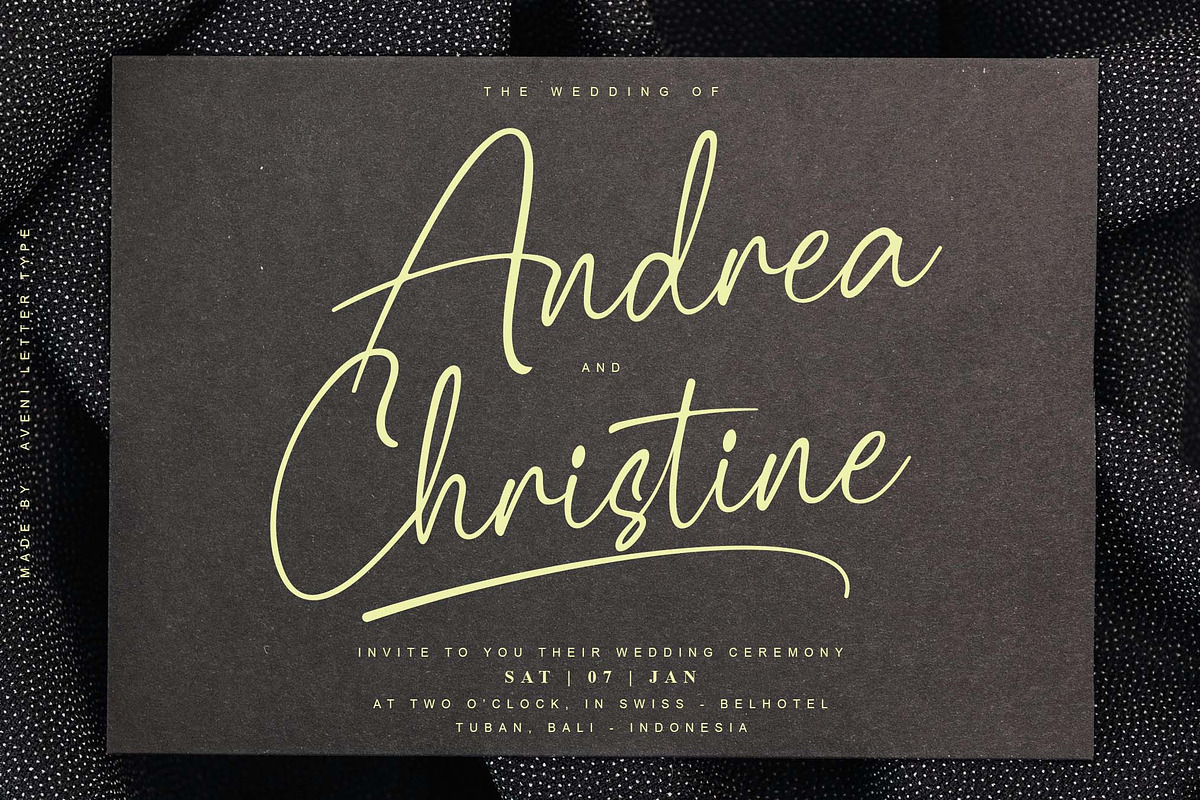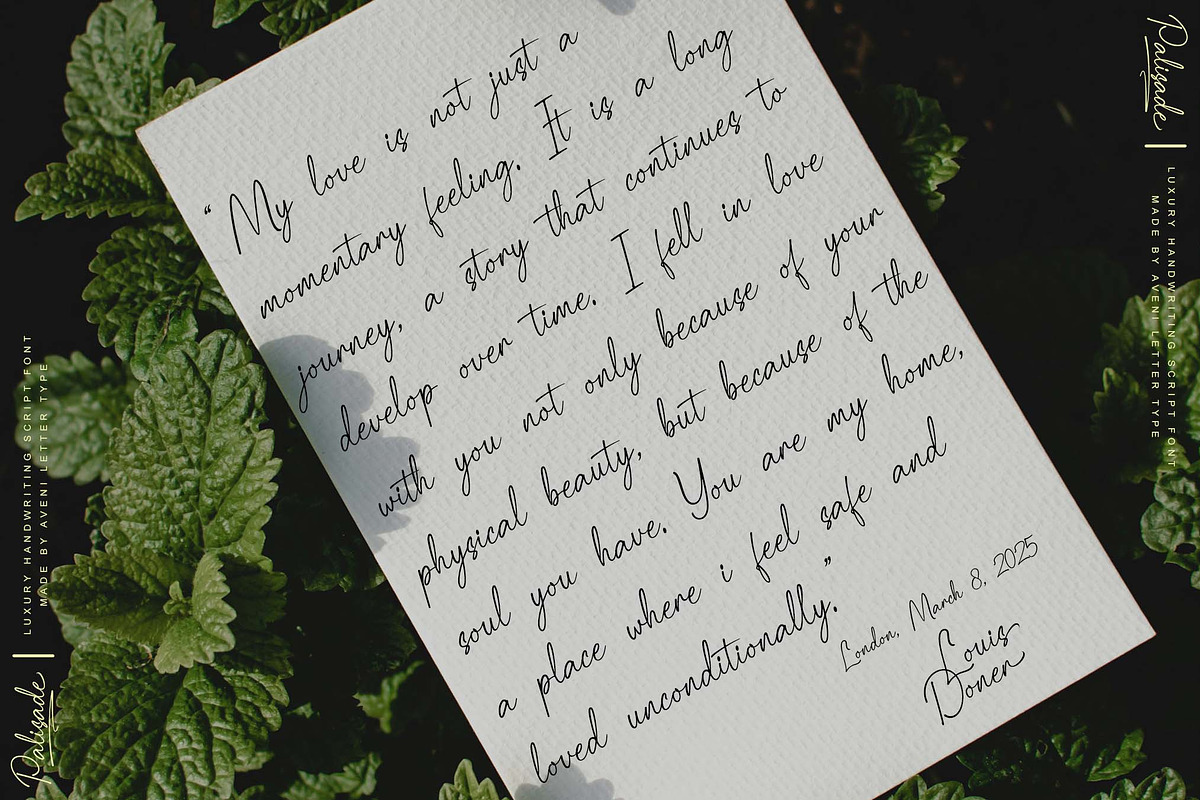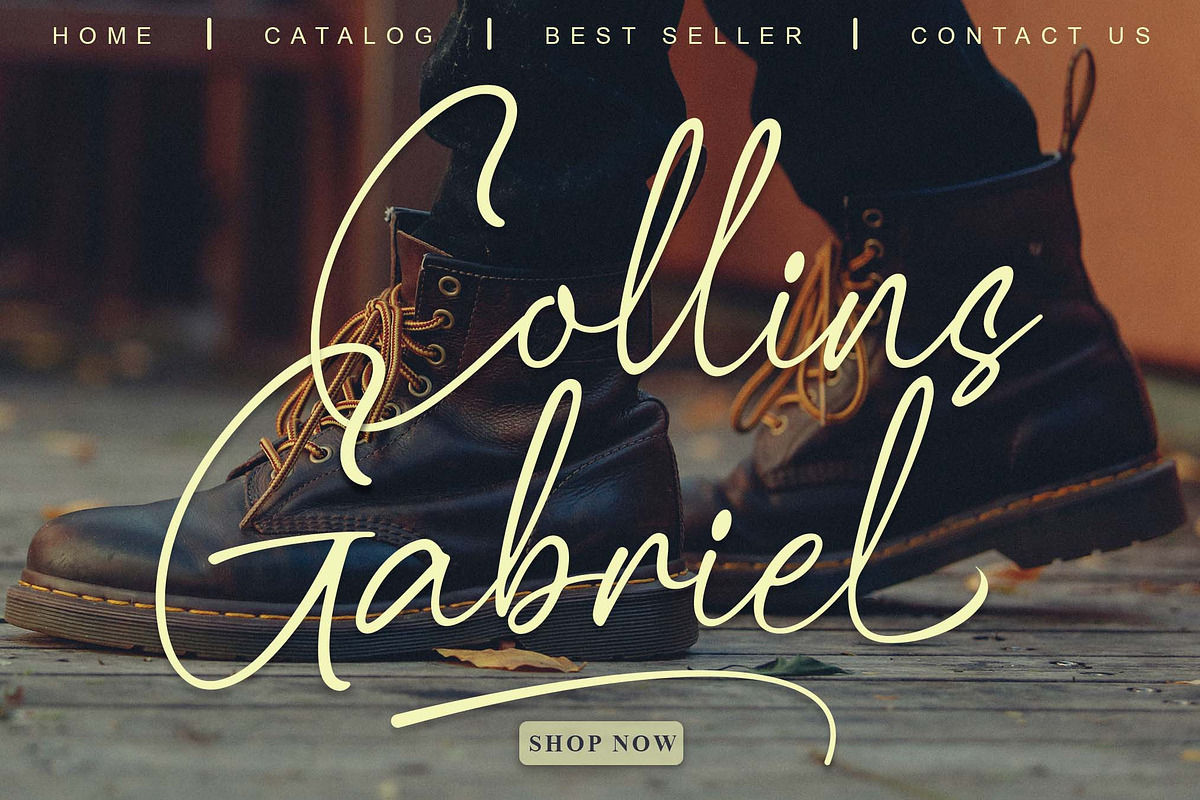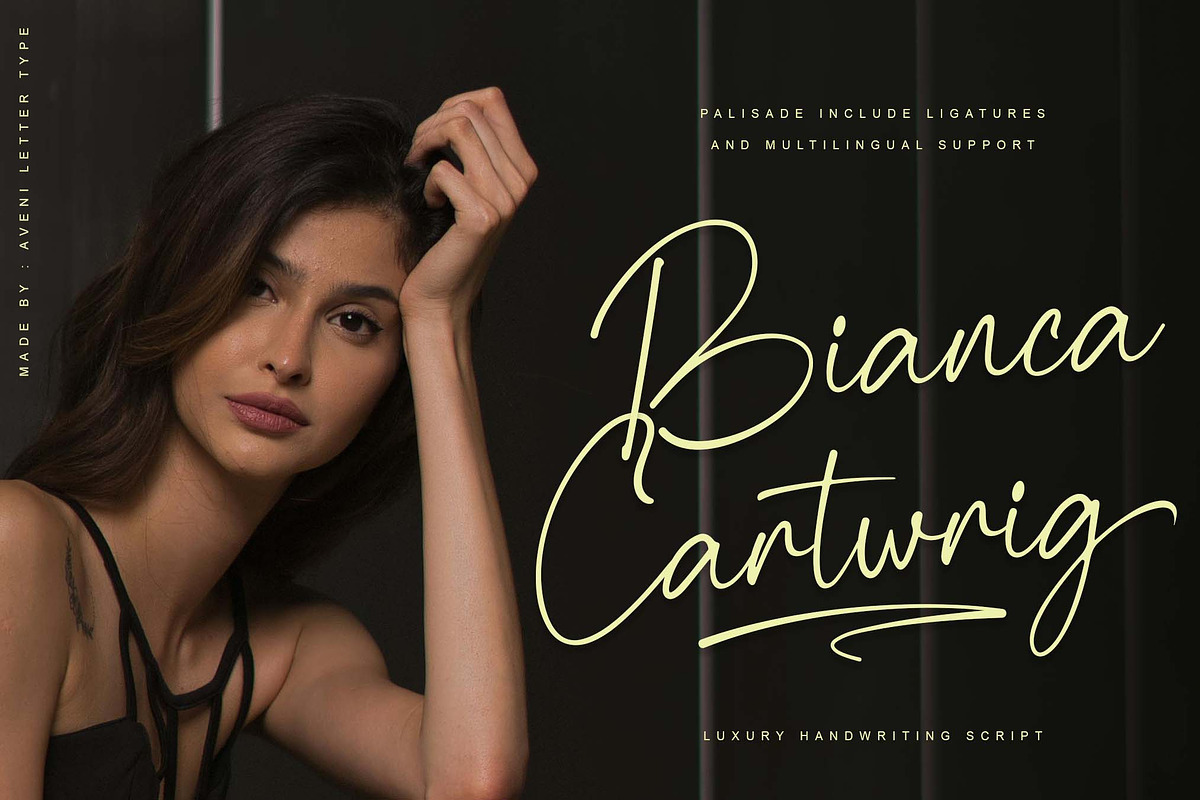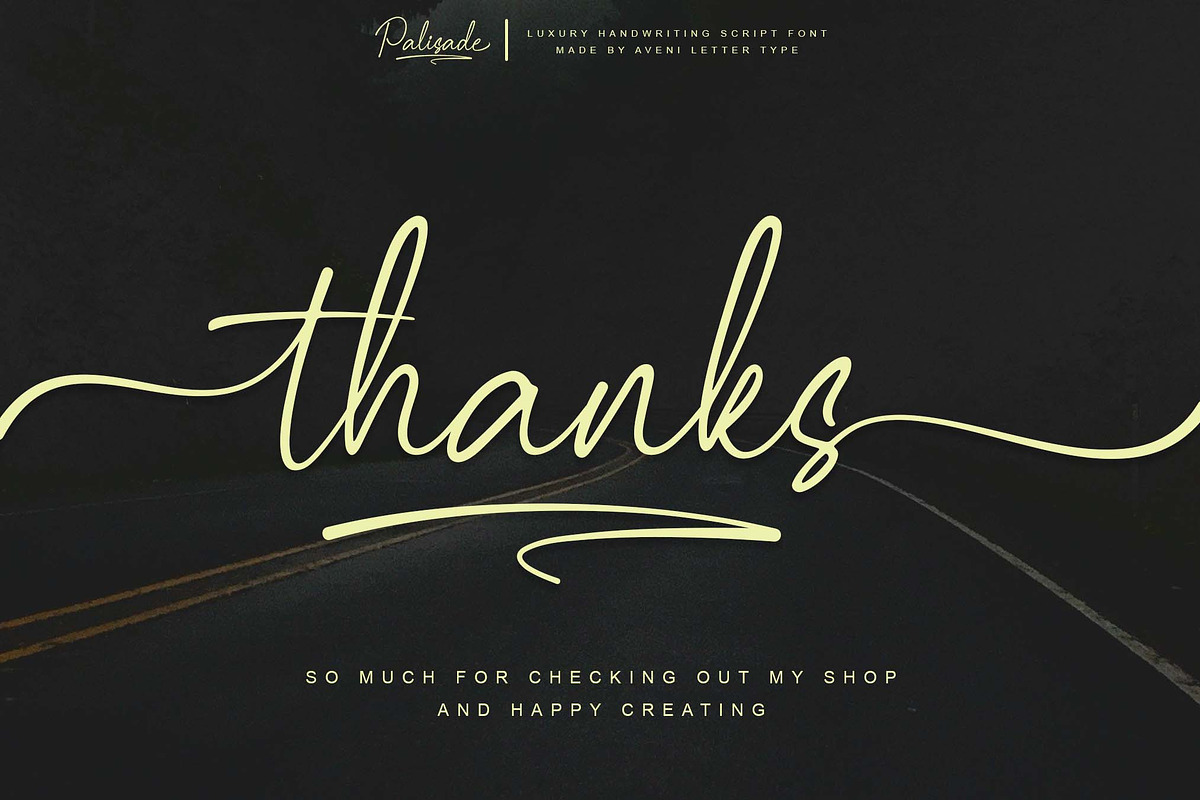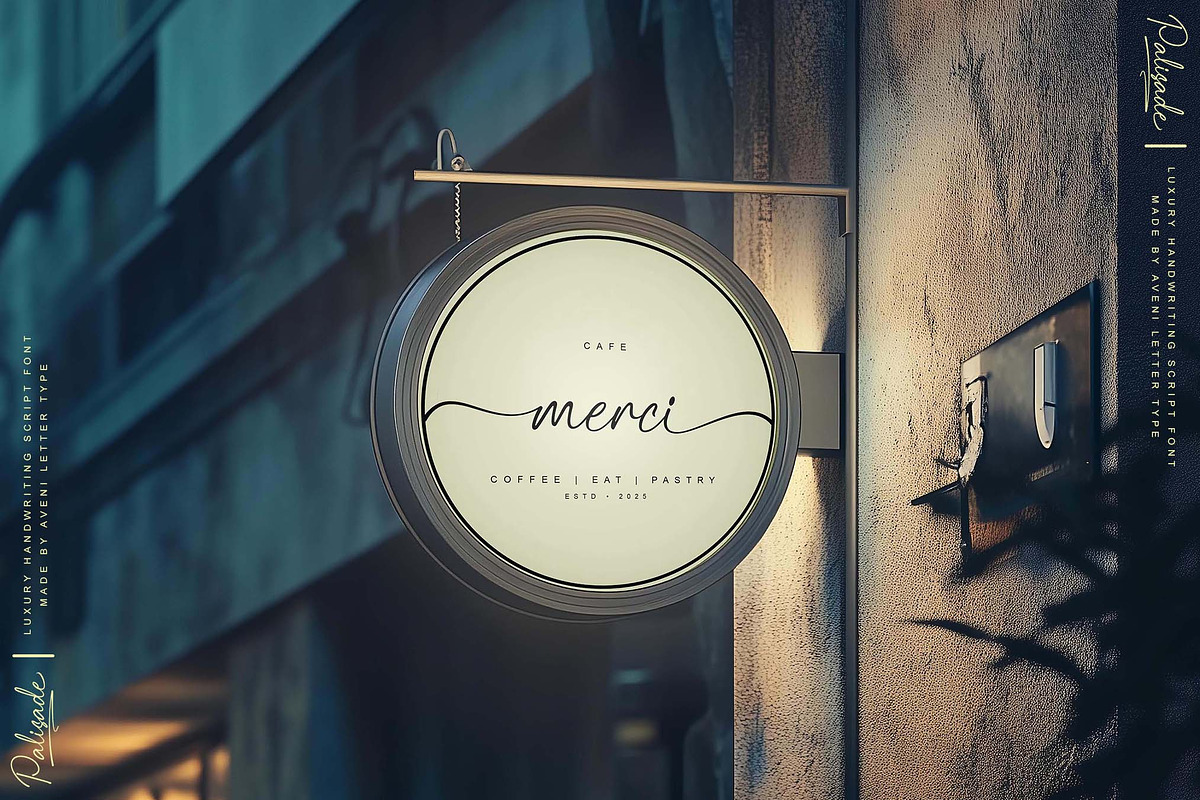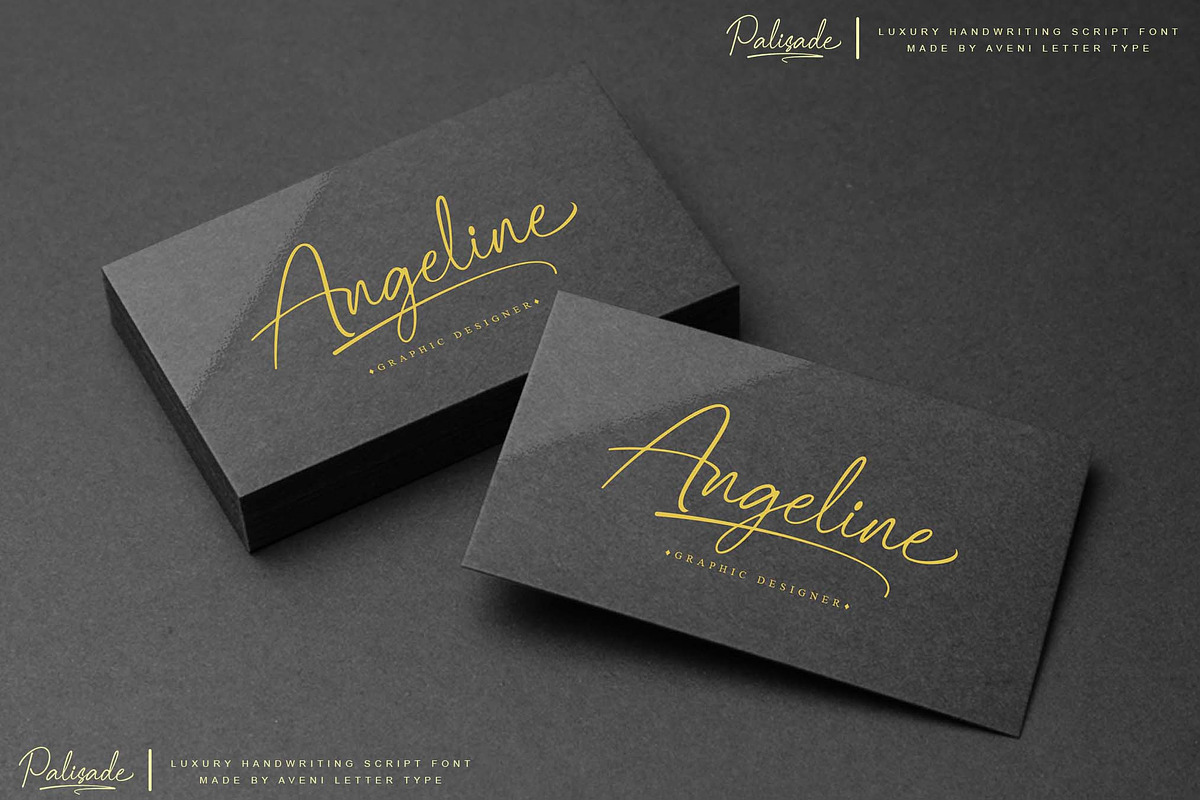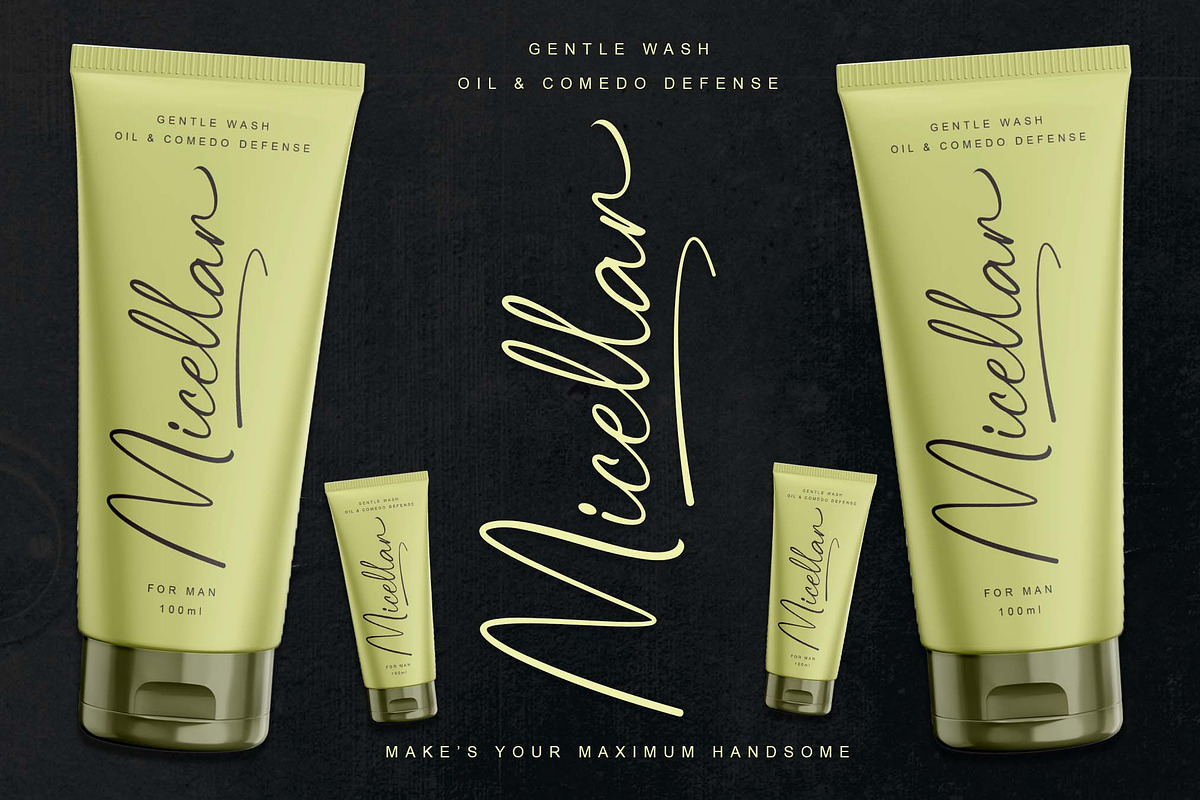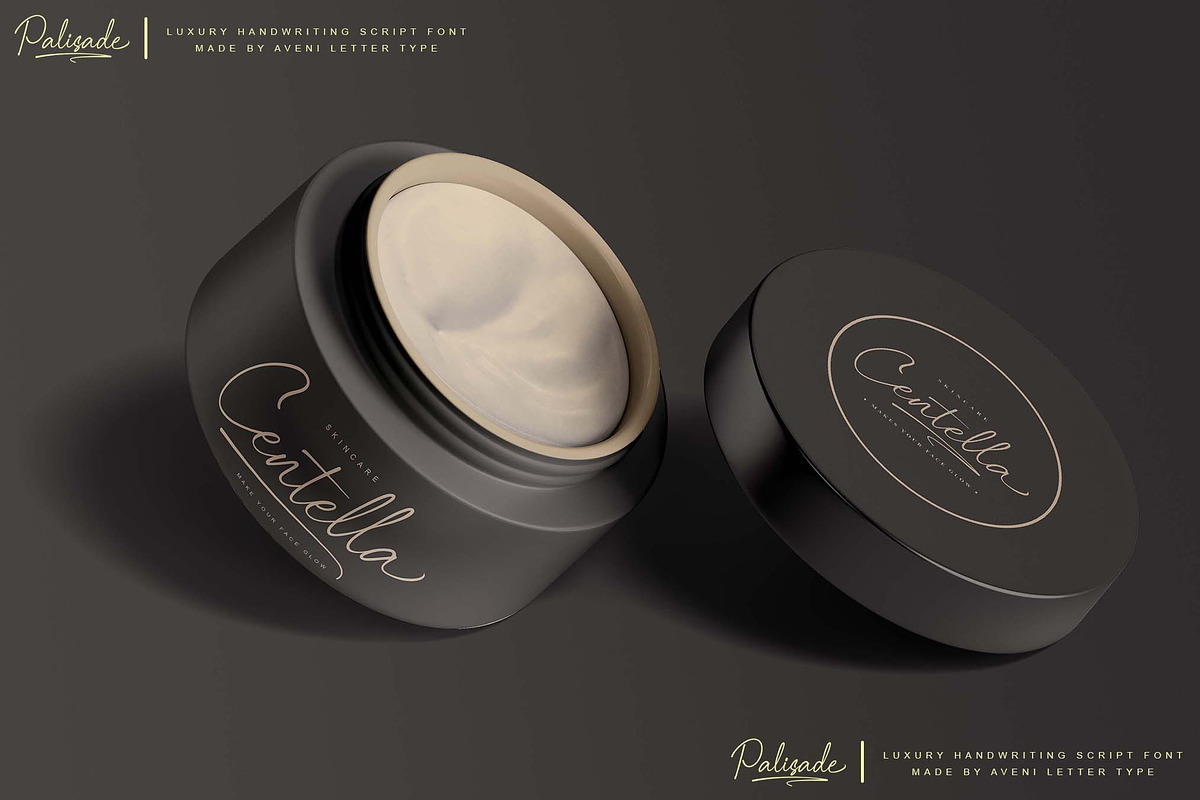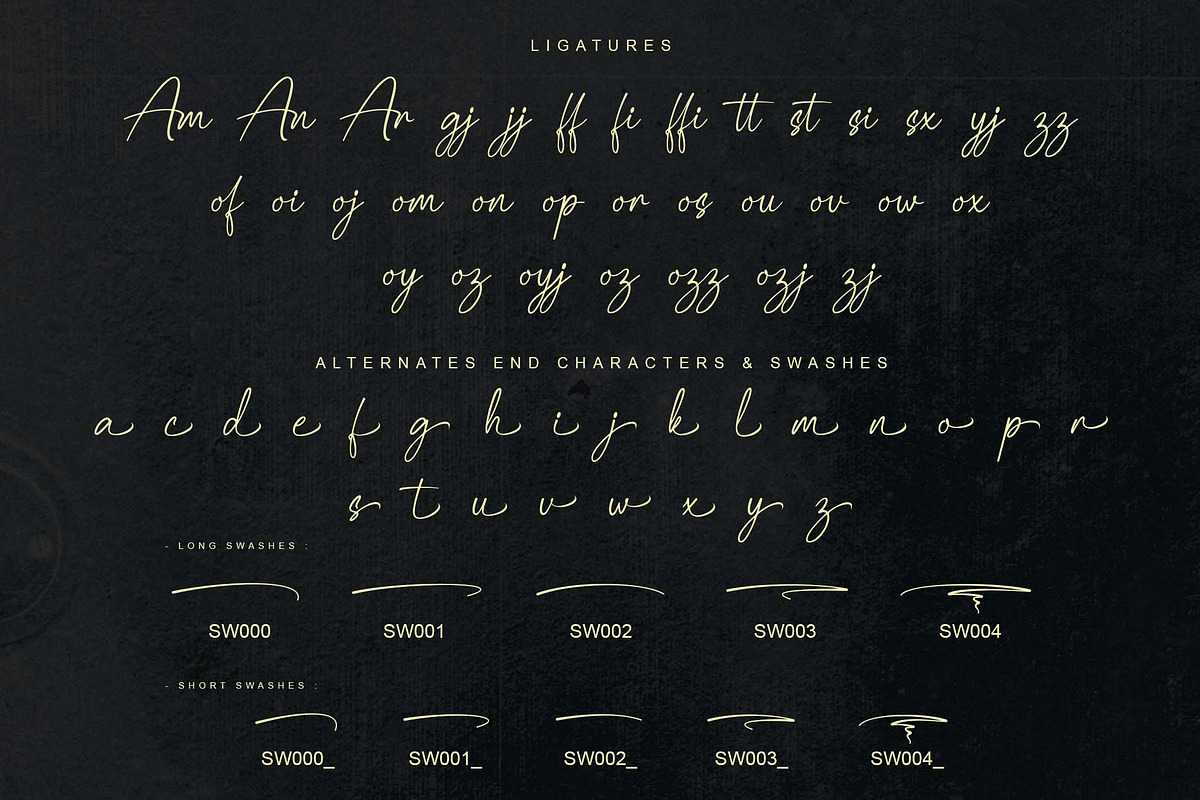
Palisade | Handwritten
Hello Ladies & Gentlemen, Introducing this is the Palisade Font. This font has a handwritten font style with a luxurious and elegant touch, and of course, this font has been kerned very neatly, so it can make it easier for you to use this font.
Of course, this Palisade Font is very Instagrammable and has many features, so it is very suitable for use in many projects that you are working on, such as for company branding, logotypes, product branding, wedding invitations, business cards, your business nameplate, letterhead, and many more of course.
Here I give you how to use Swash on the Palisade font:
Use the code listed in the thumbnail, such as SW003 to create a swash.
Example: PalisadSW003e (you can try it next to the select preview text column)
Or you will use a shorter SWASH, you just add an underscore after the SW003 code
Example: PalisadSW000_e (you can try it next to the select preview text column)
It should be noted that SWASH with the code "SW000" in the Palisade font can be used when the standard ligature feature is active in your design software.
Font Feature :
- Ligature and Multilingual
- Alternates and Swash